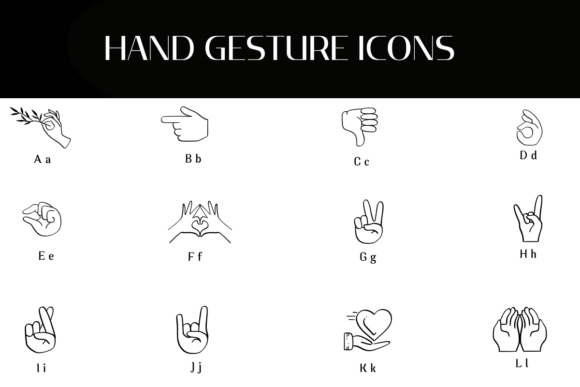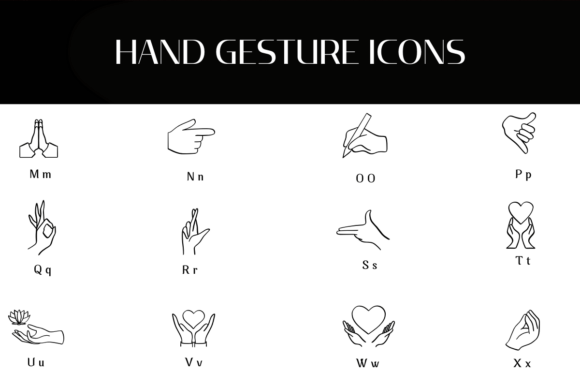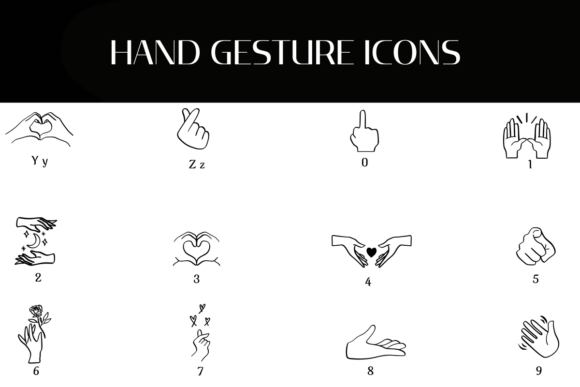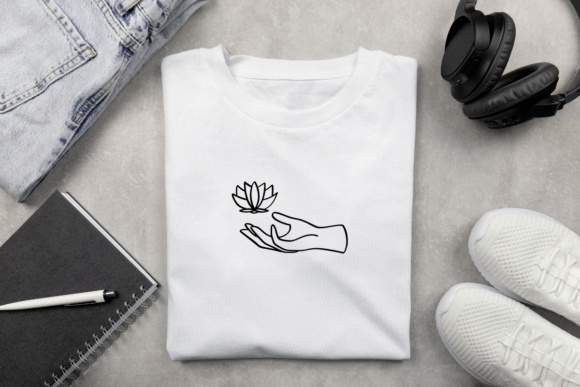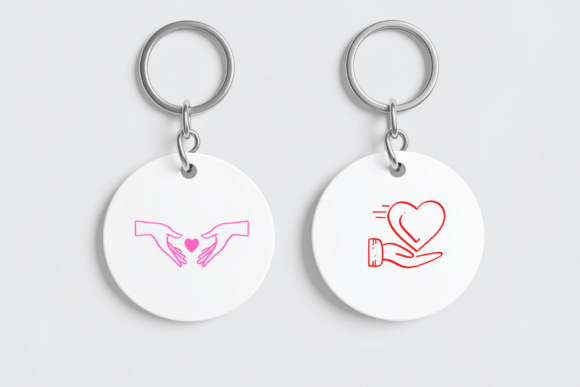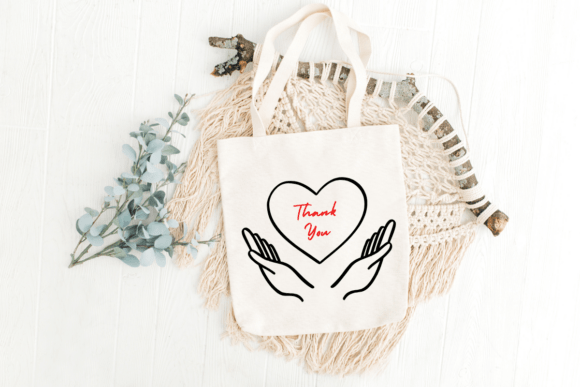
Unlock Creative Expression with Hand Gesture Icons Font
Are you a designer, craftsperson, or social media enthusiast looking for a unique way to add personality and flair to your visual content? Look no further than the Hand Gesture Icons Font, a professionally curated collection of illustrative hand symbols that are sure to elevate your creative projects.
What is Hand Gesture Icons Font?
Hand Gesture Icons Font is a dingbats font that features a diverse range of communicative hand gestures, from simple expressions like hand hearts and thumbs down to more complex interactions with symbolic elements like hearts, moons, and flowers. Each icon is meticulously crafted with a clean, monolinear stroke weight and smooth silhouettes, giving the font an artisanal, hand-drawn aesthetic.
Key Features of Hand Gesture Icons Font
- Diverse Collection: The font includes a wide variety of hand gestures, ensuring that you can find the perfect symbol to convey your message or add a touch of personality to your design.
- Clean and Consistent Design: Each icon features a clean, monolinear stroke weight and smooth silhouettes, providing a cohesive and visually appealing look.
- Easy to Use: As a font, Hand Gesture Icons can be easily integrated into your design workflow, allowing you to quickly add icons to your projects.
- Versatile: The font is suitable for a range of applications, from lifestyle infographics and social media accents to boutique product packaging stickers and instructional graphics.
Applications for Designers and Crafters
Hand Gesture Icons Font is an exceptional resource for designers and crafters looking to add a personal touch to their work. Here are some ideas for how you can use this versatile font:
- Lifestyle Infographics: Add a touch of personality to your infographics with hand gesture icons that help to illustrate complex information in a visually engaging way.
- Social Media Accents: Use hand gesture icons to add a pop of personality to your social media posts, making them stand out in crowded feeds.
- Boutique Product Packaging Stickers: Add a touch of whimsy to your product packaging with custom stickers featuring hand gesture icons.
- Instructional Creative Graphics: Use hand gesture icons to create engaging and easy-to-follow instructional graphics, perfect for tutorials, guides, and more.
By incorporating Hand Gesture Icons Font into your design workflow, you can:
- Save Time: With a vast collection of pre-designed icons at your fingertips, you can quickly find the perfect symbol to convey your message, saving you time and effort.
- Enhance Creativity: The unique and expressive nature of hand gesture icons can help to inspire creativity and add a fresh perspective to your designs.
- Improve Communication: By using visual elements like hand gesture icons, you can communicate complex information in a clear and concise way, making it easier for your audience to understand.
Getting Started with Hand Gesture Icons Font
With Hand Gesture Icons Font, you can add a touch of personality and whimsy to your designs, making them stand out in a crowded digital landscape. Whether you’re a designer, craftsperson, or social media enthusiast, this versatile font is sure to become a valuable addition to your creative toolkit.